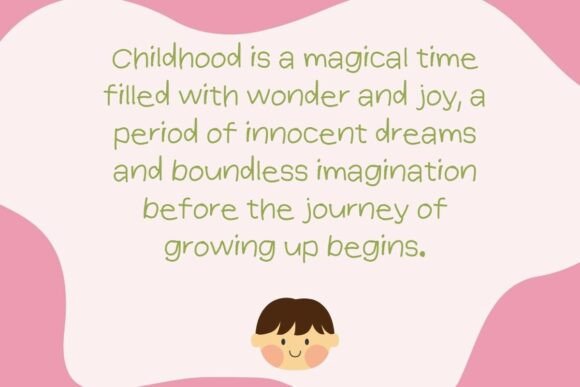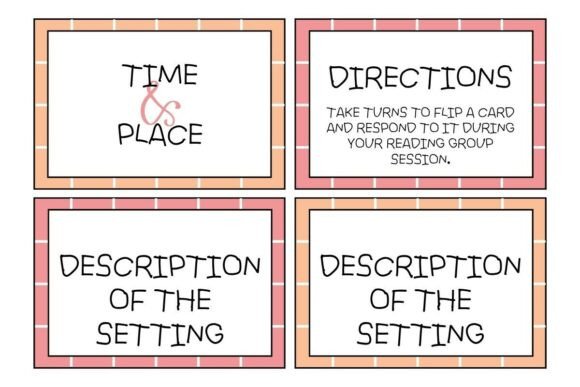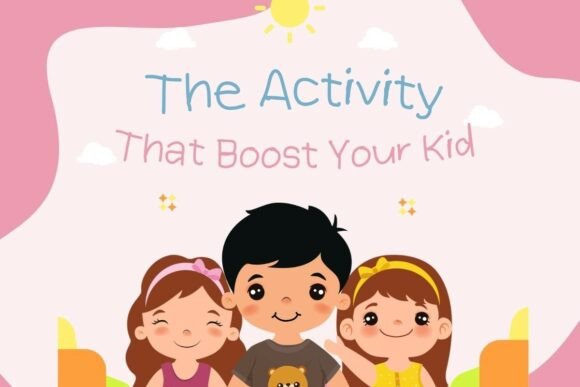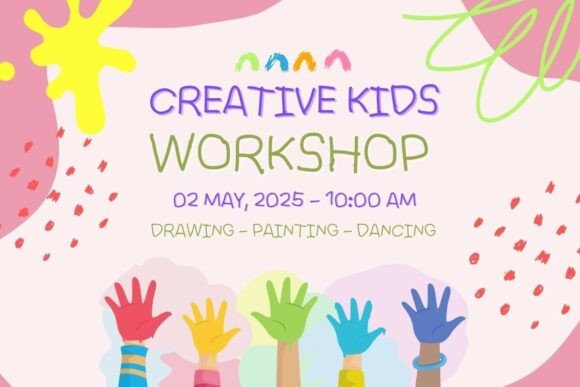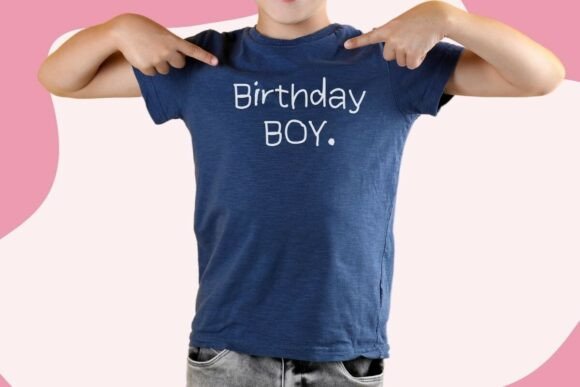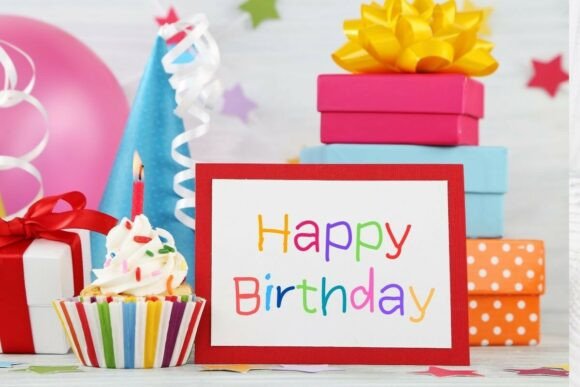
Unleashing Creativity with Five Years Old Font: A Cute Handwritten Delight
Have you ever been in the middle of a design project, and suddenly, you’re stuck? You’re trying to convey a playful, adventurous vibe, but your font just isn’t cooperating. I recall a project where I was tasked with creating a whimsical preschool activity sheet. I scoured the internet for the perfect font, and that’s when I stumbled upon the Five Years Old Font. It was love at first sight! 💕
This Cute Handwritten Font has been a game-changer for my designs, and I’m excited to share its charm with you. Ideal for bold and adventurous souls, the Five Years Old Font adds a playful twist to your projects, making them truly unforgettable.
What Makes Five Years Old Font So Special?
Perfect for preschool crafts, kids’ art, and school activities, this Preschool Font effortlessly captures the whimsy of childhood. Its irresistible and charming design makes it a go-to for designers, crafters, and creative hobbyists looking to add a touch of playfulness to their work.
- ✨ Unique and playful character set that’s sure to capture attention
- ✅ Easy to read and understand, even for young children
- 💖 Highly versatile and adaptable to various design projects
- 🎨 OpenType features and glyphs that allow for creative experimentation
⚠️ One thing to note is that the font might not be suitable for very formal or professional projects, as its playful nature might not align with the tone you’re aiming for. Additionally, some users might find the font a bit too childish for their taste.
🤔 Another thing to consider is that, like any font, it might not work well in very small sizes, so be sure to test it out before finalizing your design.
The Story Behind Five Years Old Font
The Five Years Old Font was designed with the intention of capturing the carefree spirit of childhood. Its creator, a passionate typographer, wanted to craft a font that would bring joy and playfulness to designs. The result is a font that’s both whimsical and charming, perfect for projects that require a touch of innocence and wonder.